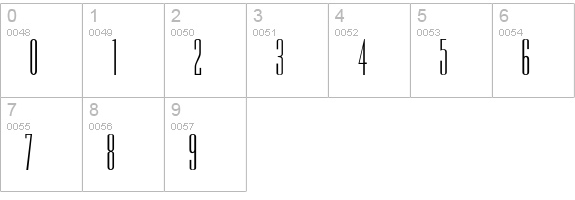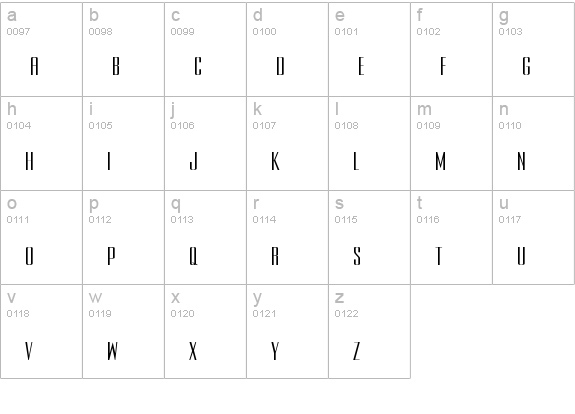
Rothman Font Details
Rothman font is a versatile and elegant typeface that exudes sophistication and charm. With its clean lines and timeless appeal, Rothman is perfect for a wide range of design projects, from branding to editorial design. Its classic yet modern aesthetic makes it a popular choice among designers looking to add a touch of sophistication to their work. The best part? Rothman font is available for free download at FontsMarket.com, making it accessible to designers of all levels. Whether you're working on a personal project or a client commission, Rothman font is sure to elevate your design with its refined style and versatility. Don't miss out on this opportunity to enhance your creative projects with the timeless beauty of Rothman font - download it for free today!